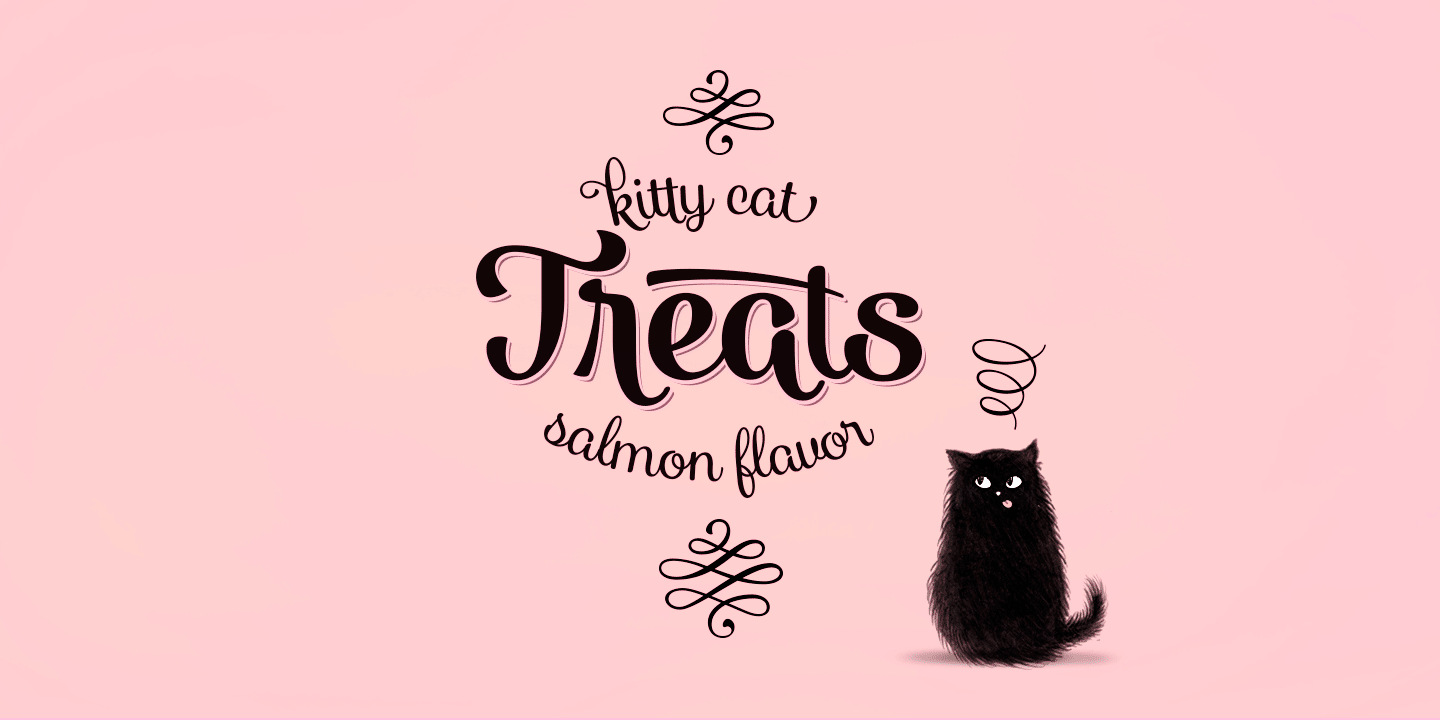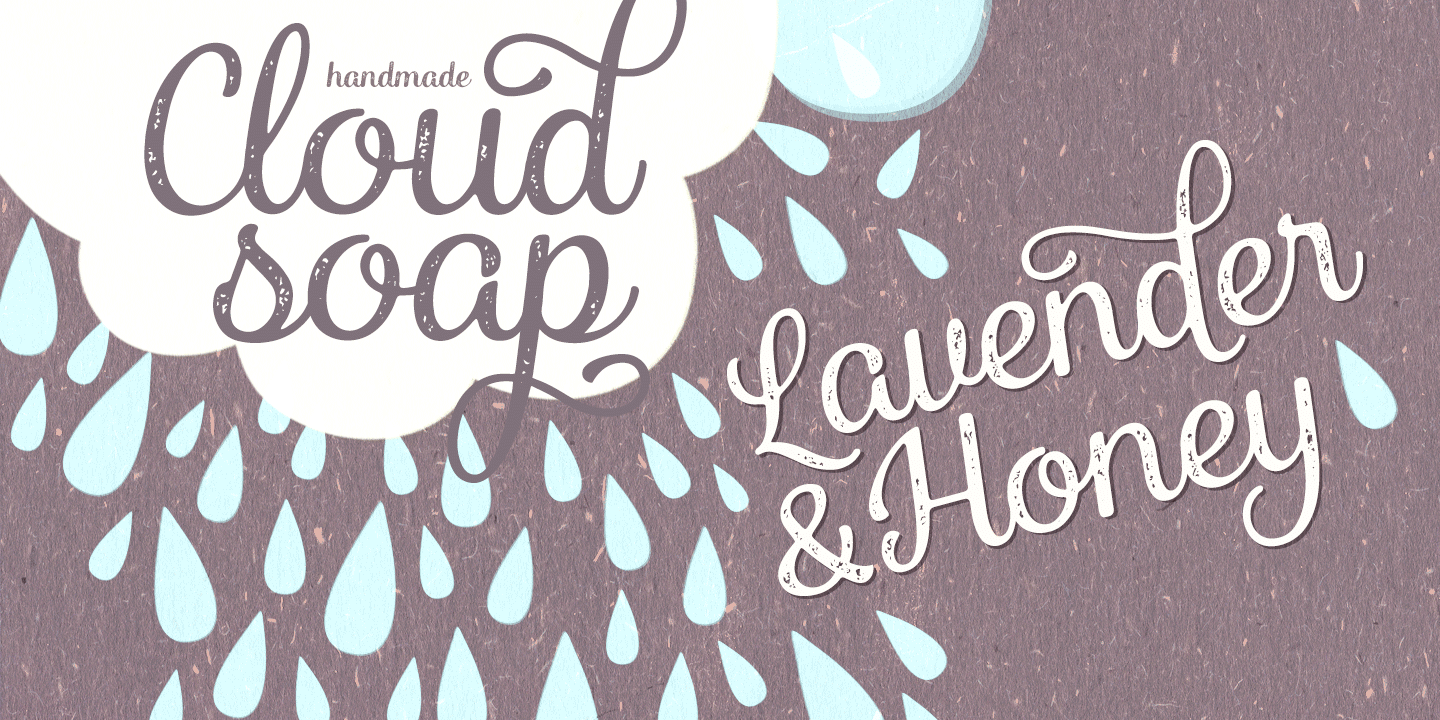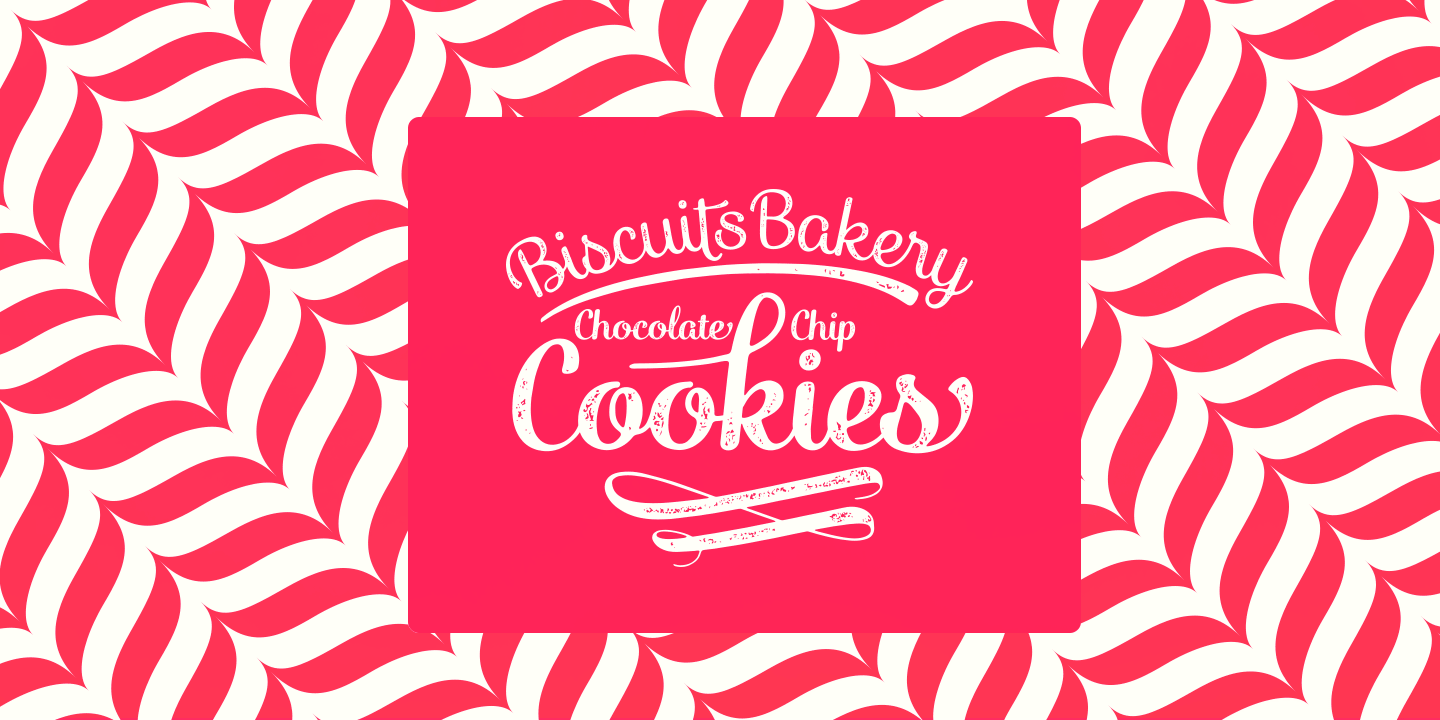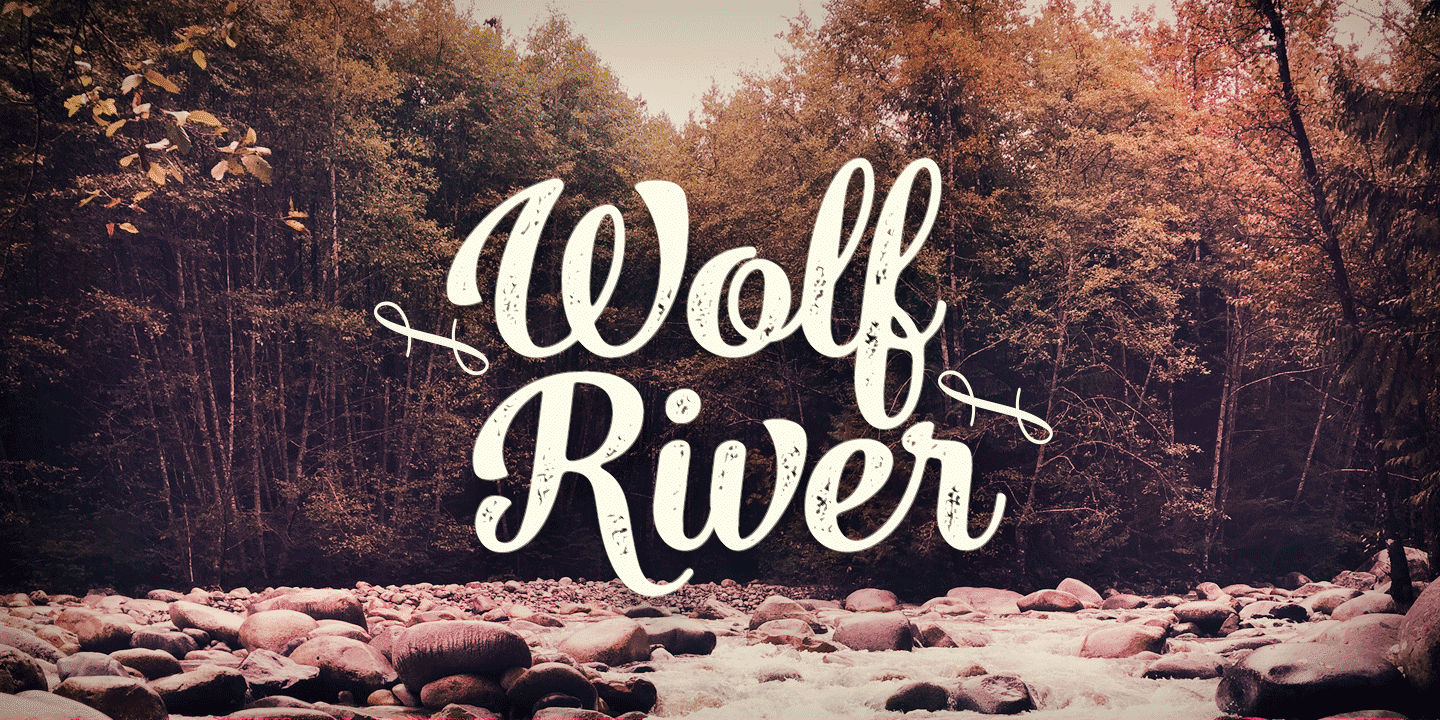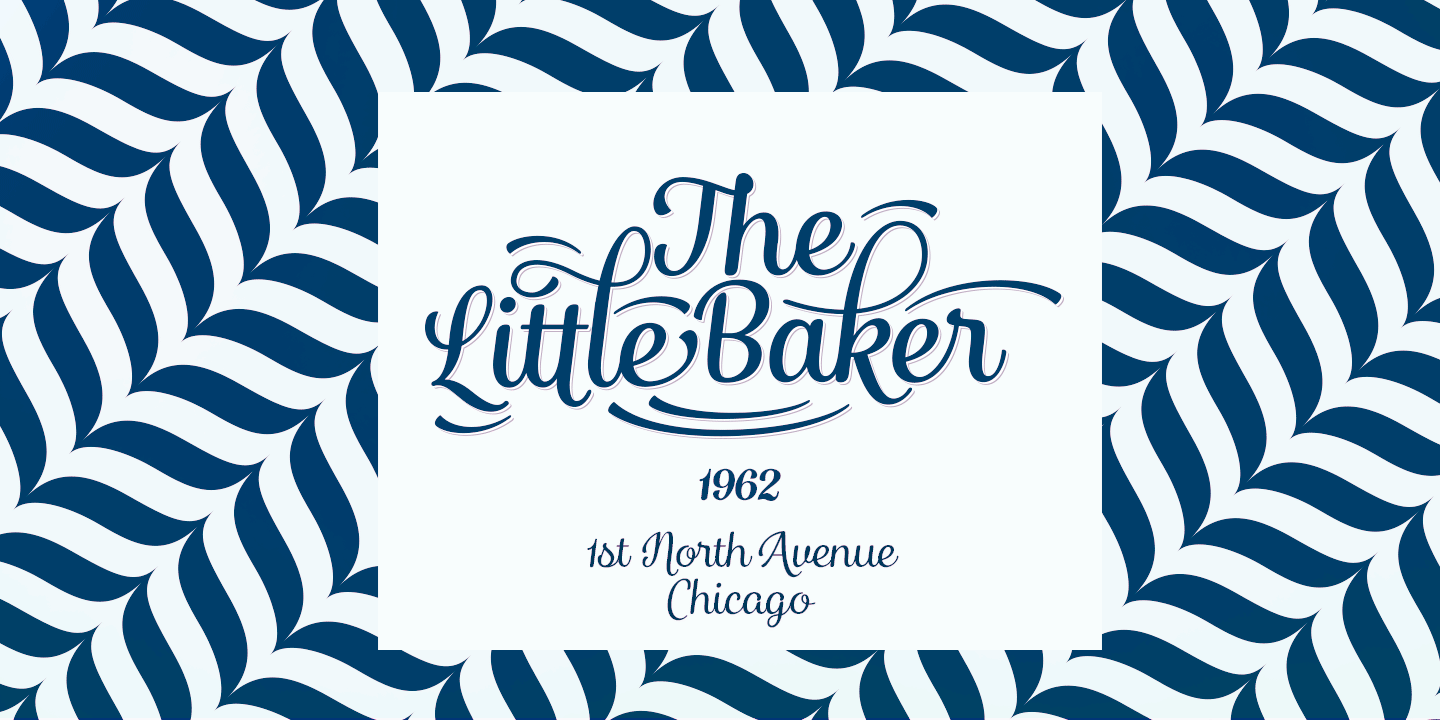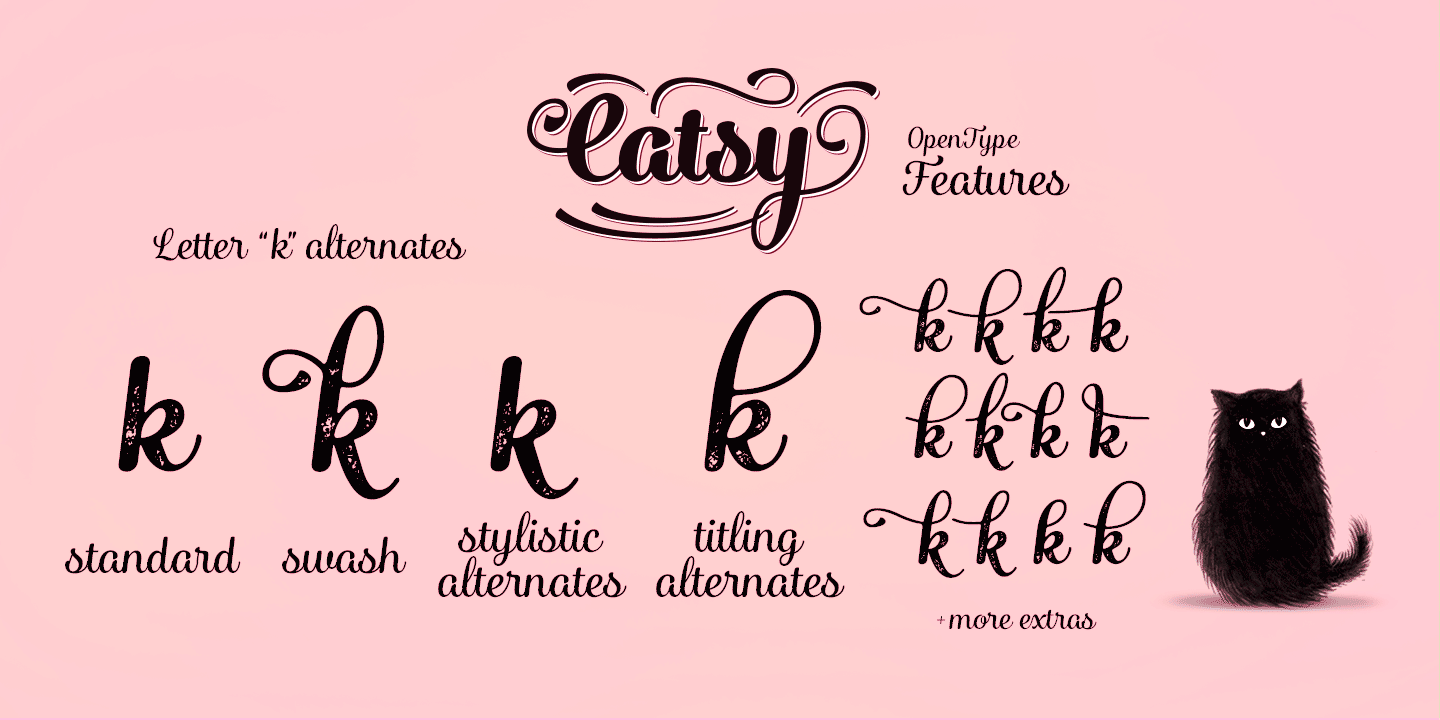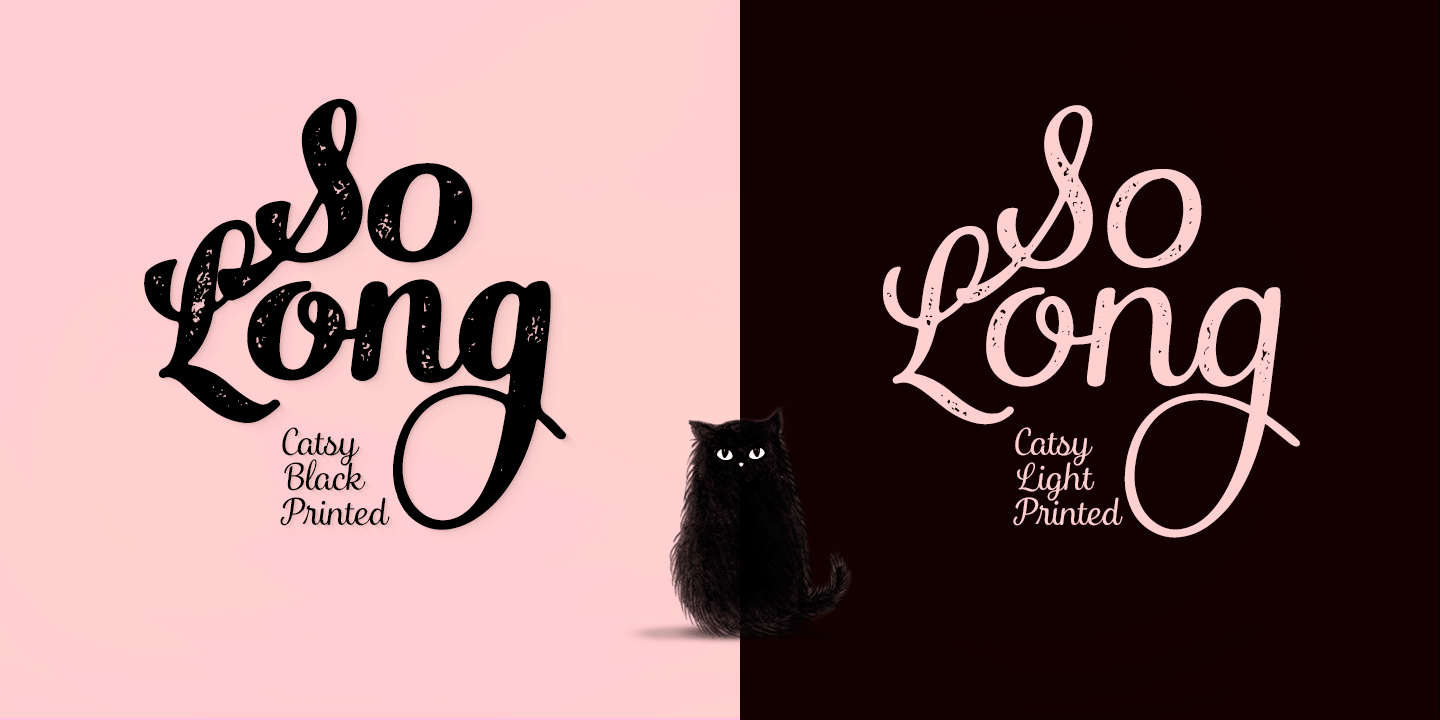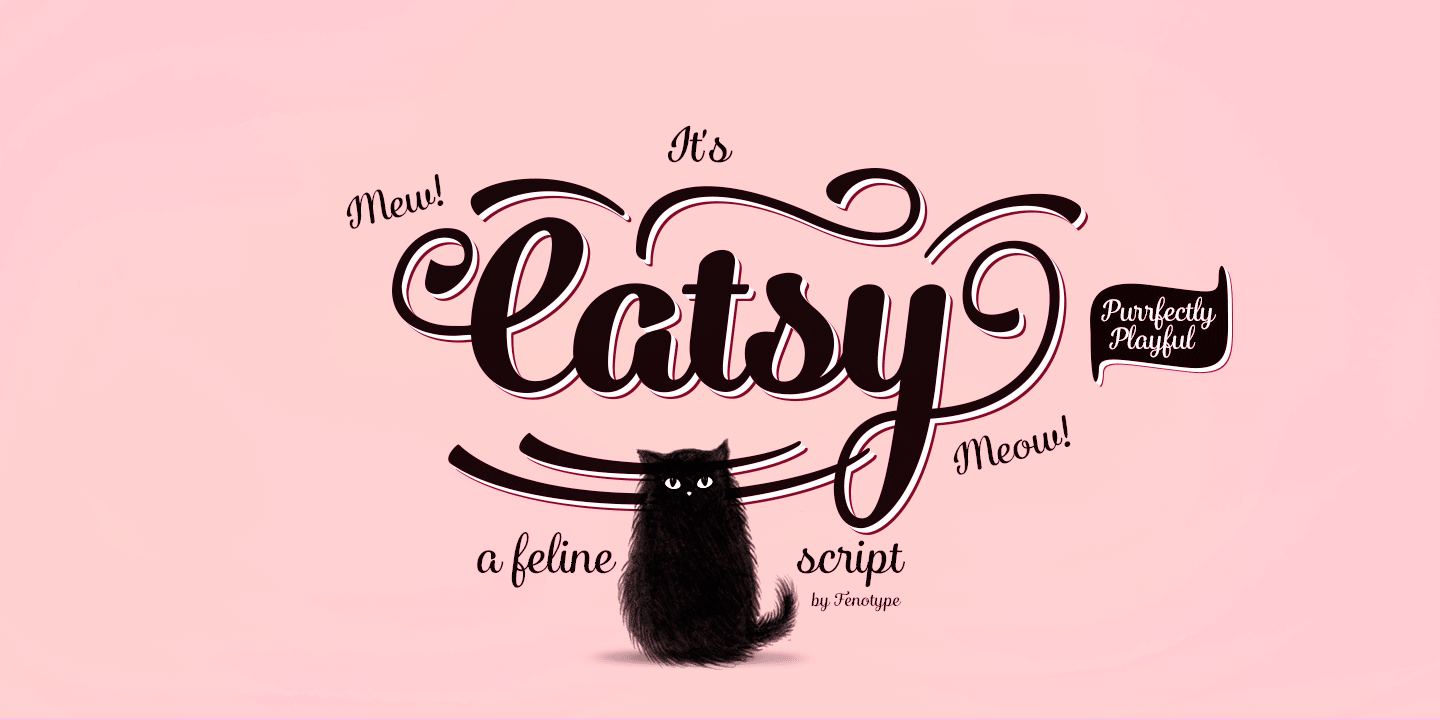
Catsy Printed is a texturised version of Catsy. Catsy Printed also has softer features than Catsy.
Catsy Ornaments is a pack of 86 extra swashes, badges, ornaments and swirls designed to play with the font, though they work nice on their own as well.
Ligatures, Alternates, Swash